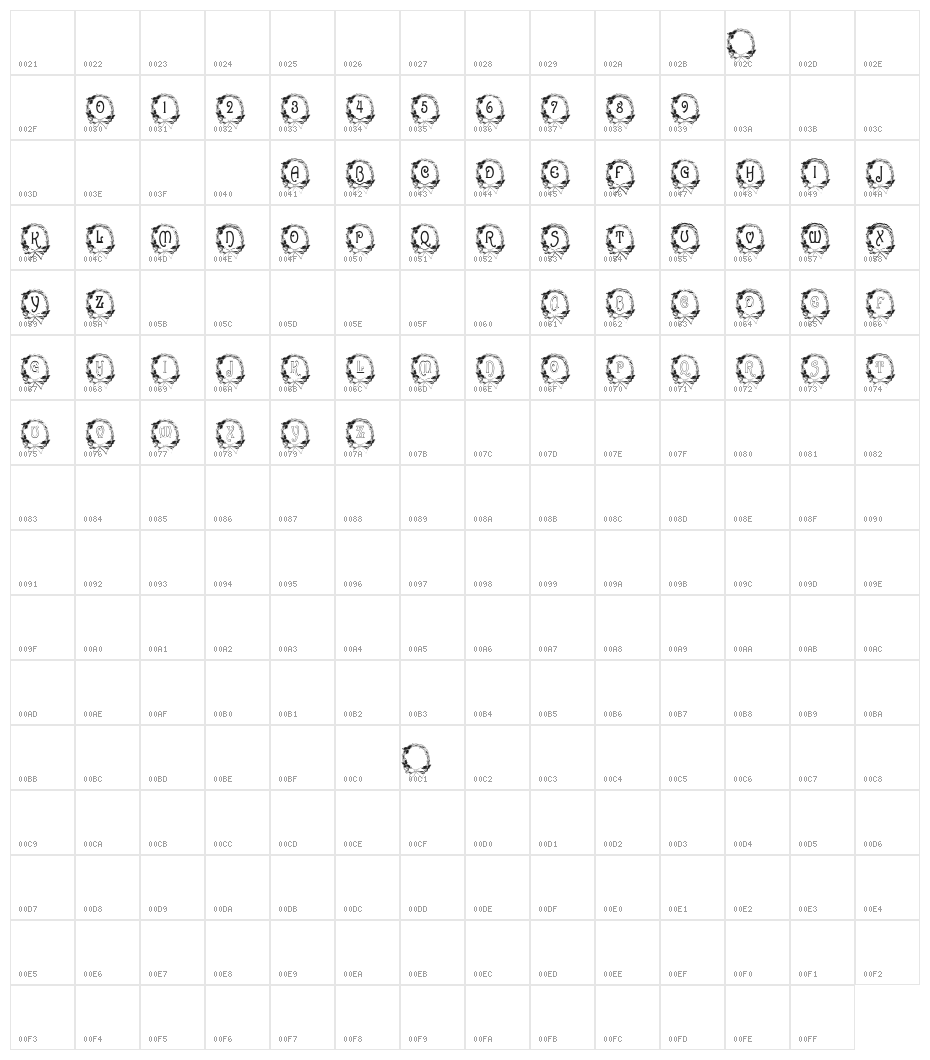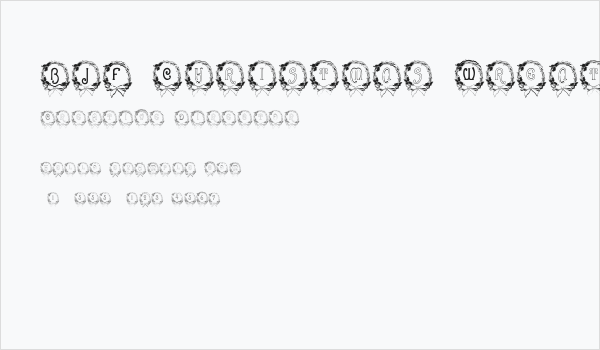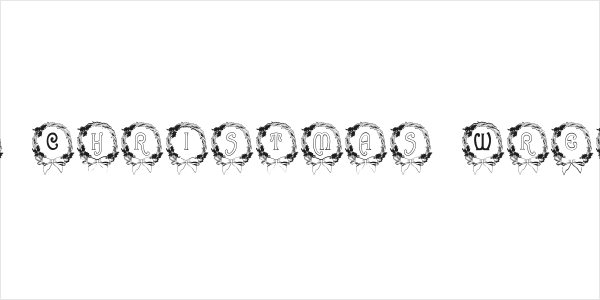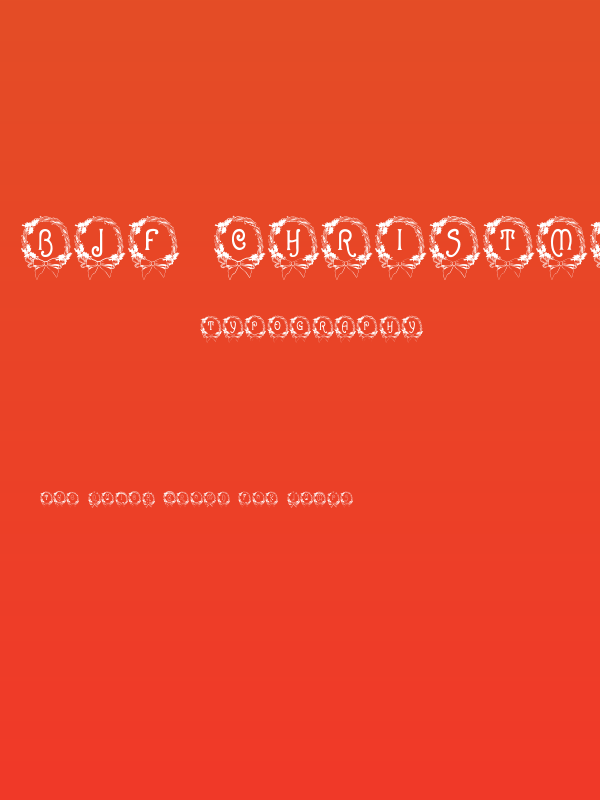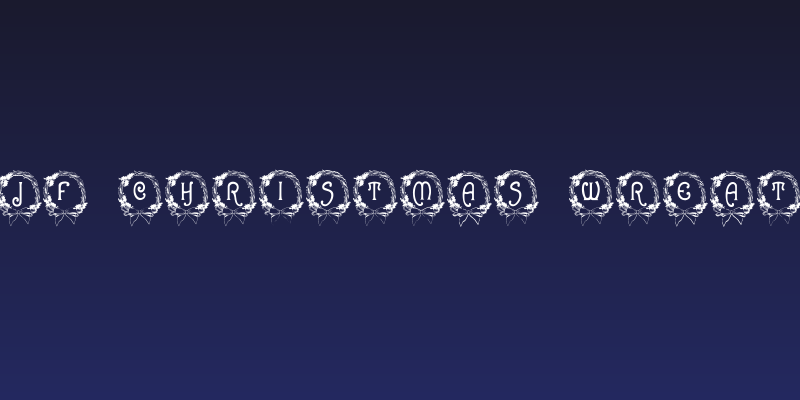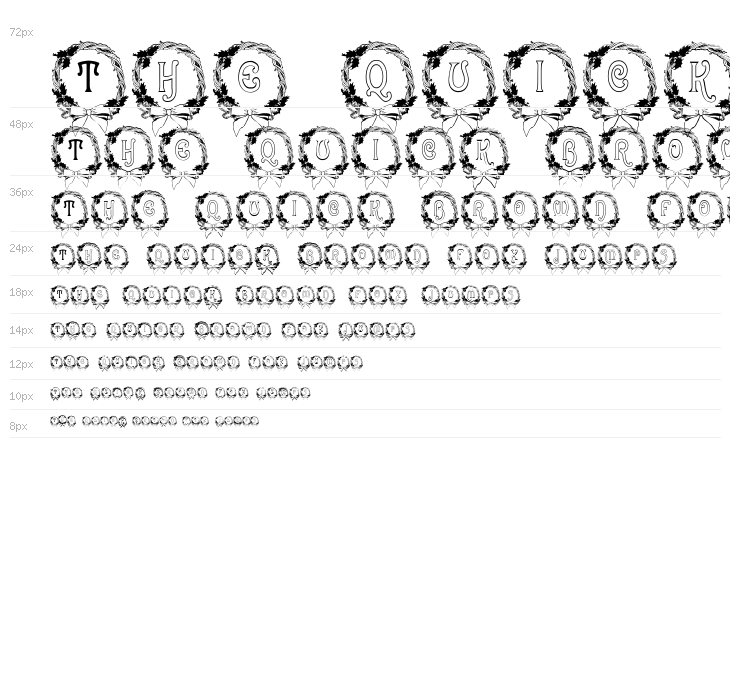
BJF Christmas Wreath Font
BJF Christmas Wreath Description
This decorative font features each character encased within a festive wreath design, complete with holly leaves and a bow at the bottom. The letters and numbers are elegantly styled, with a slight vintage flair, making them perfect for holiday-themed projects. The intricate wreath adds a unique touch, creating a sense of warmth and celebration. The characters are well-defined within their circular frames, ensuring readability while maintaining the decorative aspect. This font is ideal for creating eye-catching holiday cards, invitations, and festive branding materials.
| Proposed Projects | Holiday cards, festive invitations, seasonal branding, decorative posters. |